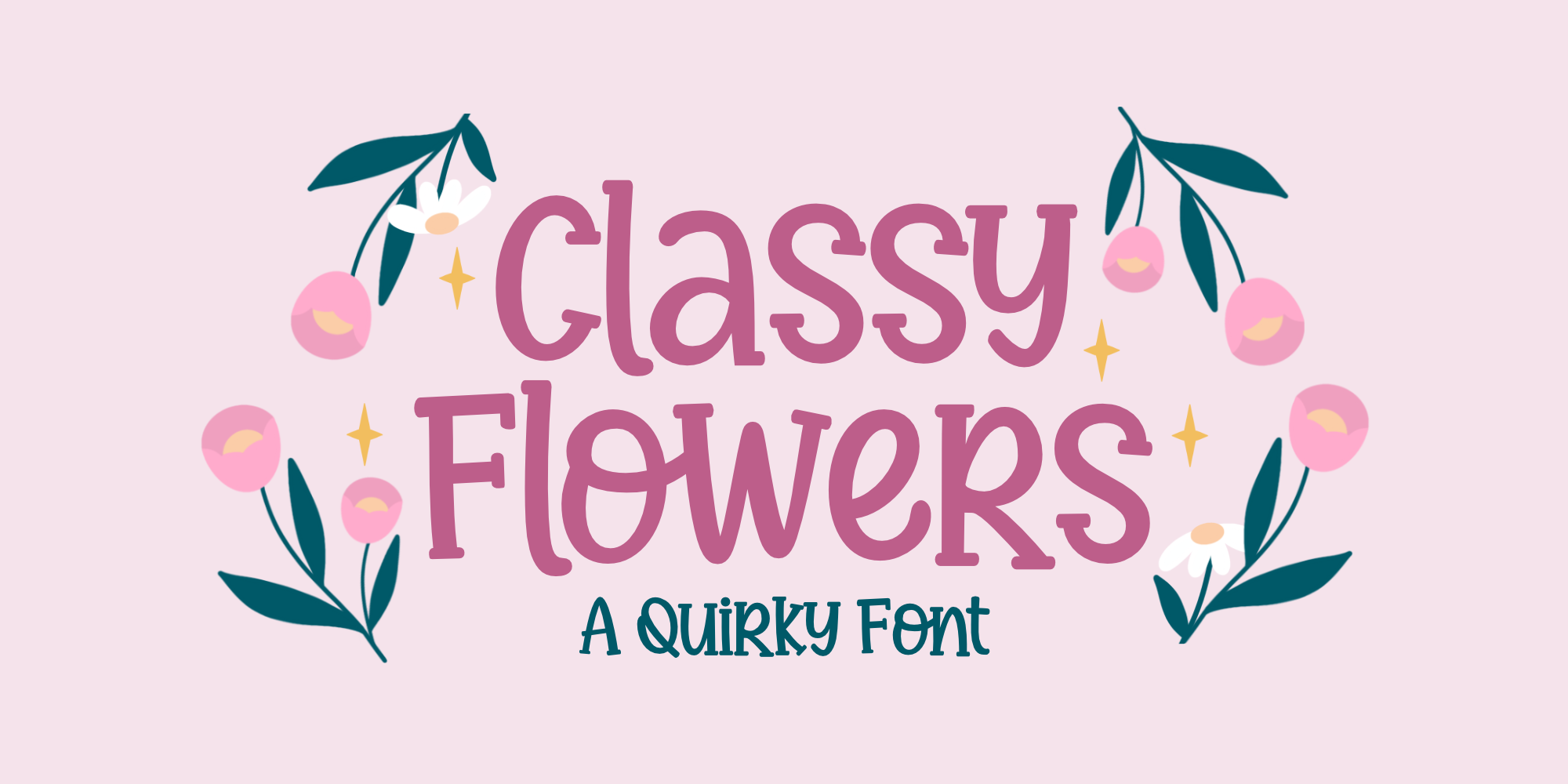
Classy Flowers Font is an exquisite and elegantly blooming typeface, perfectly suited for projects that aim to capture the delicate beauty of nature and a touch of refined sophistication. Imagine it gracing the luxurious invitations for a grand wedding, adding a romantic and artistic flair to high-end floral branding, or providing a graceful aesthetic for boutique beauty product packaging. It's also an excellent choice for crafting heartfelt greeting cards, designing unique labels for artisanal goods, or infusing blog headers and social media posts with a serene and visually enchanting personality. If you're looking to convey charm, elegance, and the timeless allure of blossoming natural beauty, Classy Flowers Font is an outstanding selection.
What makes Classy Flowers Font so exciting? It’s its unique ability to blend a fluid, often script or decorative style with subtle floral-inspired details, creating a font that feels both organic and exquisitely polished. This font often features graceful curves, delicate ligatures, and intricate flourishes that evoke the gentle movement of petals and leaves, giving it an undeniable artistry. Despite its decorative nature, Classy Flowers Font is meticulously designed to maintain excellent readability, ensuring your message is communicated beautifully and with an ethereal, captivating tone. Designers will appreciate its versatility in creating designs that feel both intimately artistic and professionally refined, making it a go-to choice for brands and projects that aim to connect with their audience through themes of natural beauty, romance, and understated luxury.
The Classy Flowers Font family is typically designed to showcase a singular, beautifully crafted script or display style that perfectly embodies its unique appeal. While it may not feature extensive weight variations like a traditional text font, its strength lies in its inherent personality and often includes a rich set of stylistic alternates, swashes, or ligatures that enhance its decorative aesthetic. These subtle details allow Classy Flowers Font to maintain its cohesive and captivating look across various applications, from elegant endorsements to charming personal correspondence. Discover the enchanting allure of Classy Flowers Font Free Download and infuse your designs with an unforgettable sense of blossoming elegance.